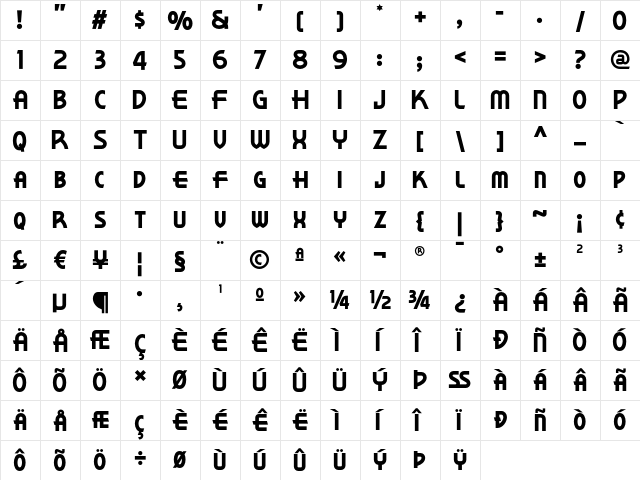
Korner Deli NF Regular
Design Context for Korner Deli NF Typeface
Korner Deli NF offers clean, dependable letterforms without strong stylistic allegiance, making it a practical choice for designers who need flexibility.